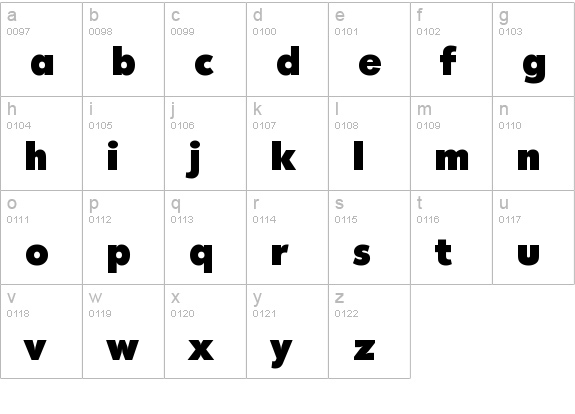
MontrealSerial-Heavy-Regular is a heavy, high-impact variant in the MontrealSerial typeface family \xE2\x80\x94 well suited to high-impact headlines, posters, and display advertising.
MontrealSerial-Heavy-Regular is a versatile and bold font that exudes strength and modernity. With its clean lines and distinct letterforms, this typeface is perfect for making a statement in any design project. Whether used for headlines, logos, posters, or branding, MontrealSerial-Heavy-Regular commands attention and leaves a lasting impression. The best part is that MontrealSerial-Heavy-Regular is available for free download at FontsMarket.com. This means you can easily access this high-quality font and incorporate it into your creative work without any cost. Don't miss out on adding MontrealSerial-Heavy-Regular to your font collection today!